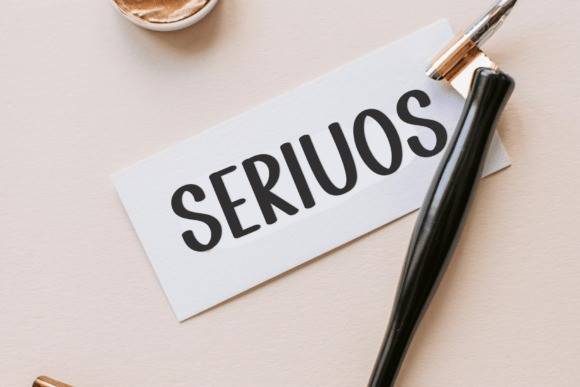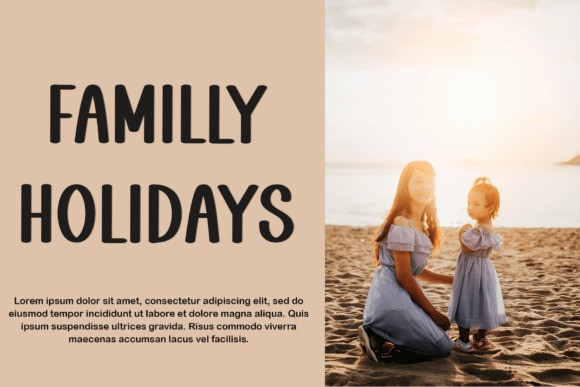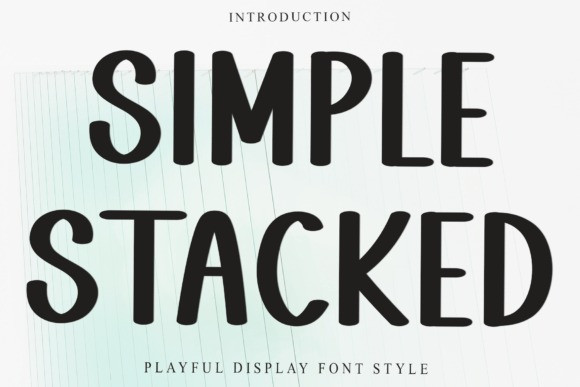
Simple Stacked Typeface
Simple Stacked Typeface is a lovely and timeless handwritten font. It is the best choice for creating eye catching logos, branding and quotes. Every letter has a unique and beautiful touch, which will make your design come alive!